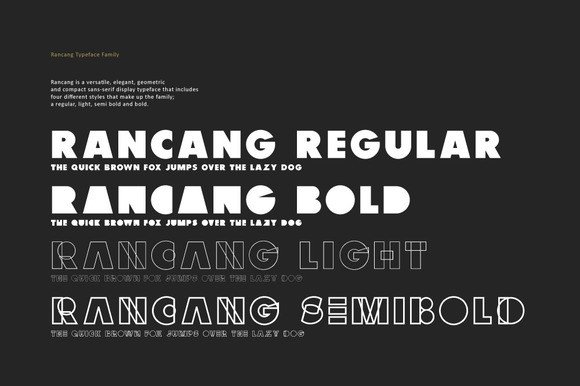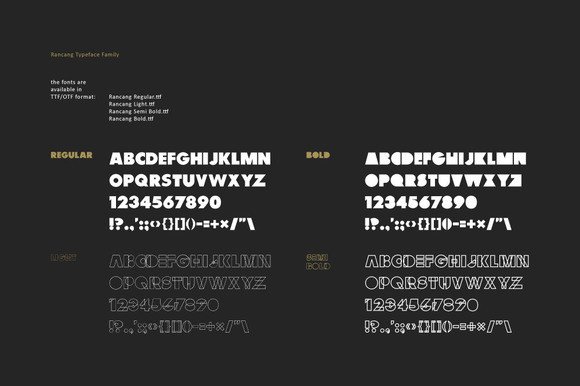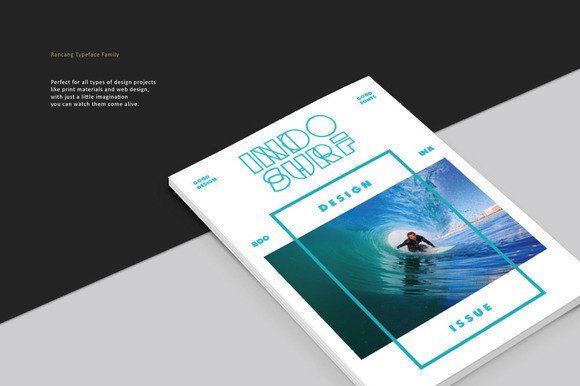
Introduction to Rancang Font
Have you ever been stuck on a creative project, struggling to find the perfect font to bring your vision to life? You’ve spent hours scouring the internet, searching for that one font that will make your design pop. And then, just when you thought you’d never find it, you stumble upon a hidden gem – the Rancang Font. This gorgeous outlined font is the perfect solution for designers looking to add a touch of modernity to their displays and headlines.
With its bold and striking design, the Rancang Font is a valuable resource for any creative project. Whether you’re working on a branding campaign, designing a website, or creating a social media graphic, this high-quality font is sure to make a lasting impression. And the best part? It’s available for free download, making it an accessible design resource for designers of all levels.
- Features a clean and modern design, suitable for use in a wide range of applications, including logos, branding, and typography.
- Unique characteristics: The font features a unique blend of modern and traditional design elements, making it a standout choice for creative projects.
Honest Review: Rancang Font
As a designer, I’m always on the lookout for high-quality design resources to elevate my creative projects. Recently, I stumbled upon Rancang Font, and I’m excited to share my honest review with you.
Overall, I’m impressed with Rancang Font’s offerings. The high-quality designs and free download option make it an excellent addition to any designer’s toolkit. While it may have some limitations, it’s still a valuable resource for designers looking to add a unique touch to their creative projects.
Rancang Font is a high-quality design resource that offers a wide range of fonts for free download. With its transparent background, it’s perfect for creative projects that require a professional touch.
Rancang Font is perfect for:
- Designing business cards and brochures.
- Creating social media graphics and ads.
- Developing e-learning courses and educational materials.